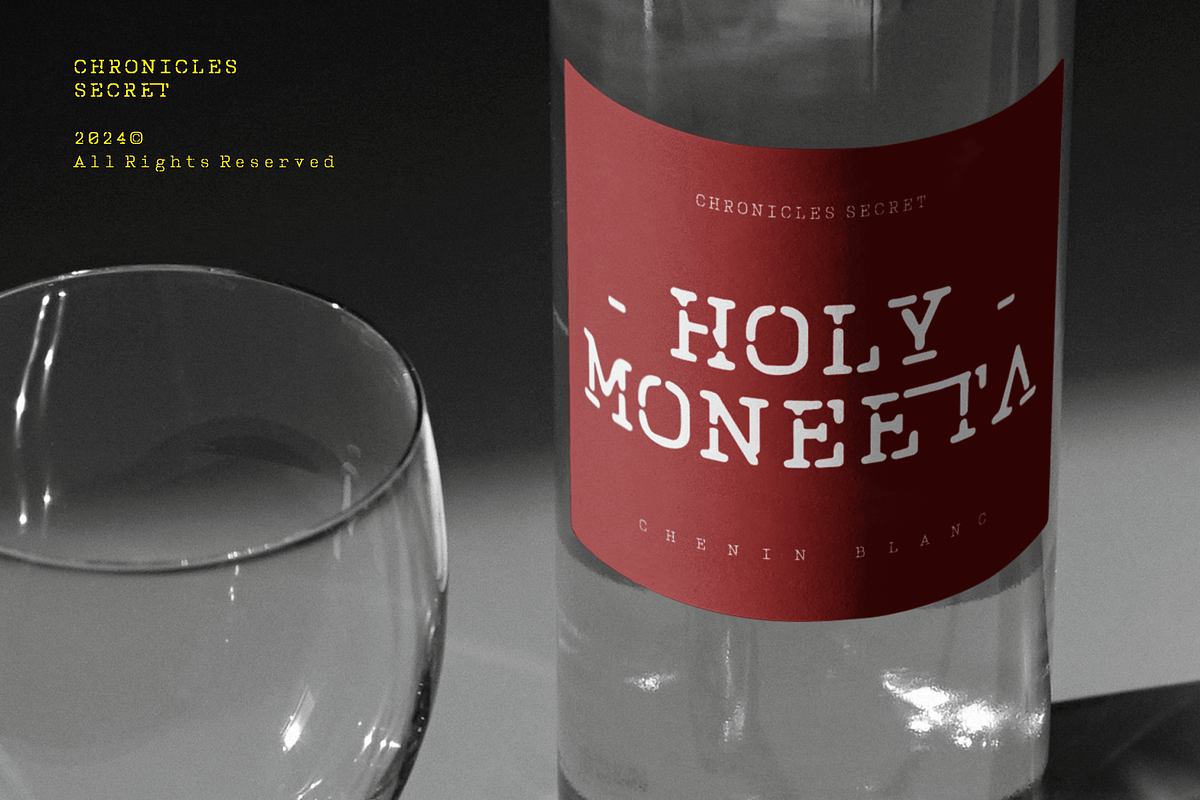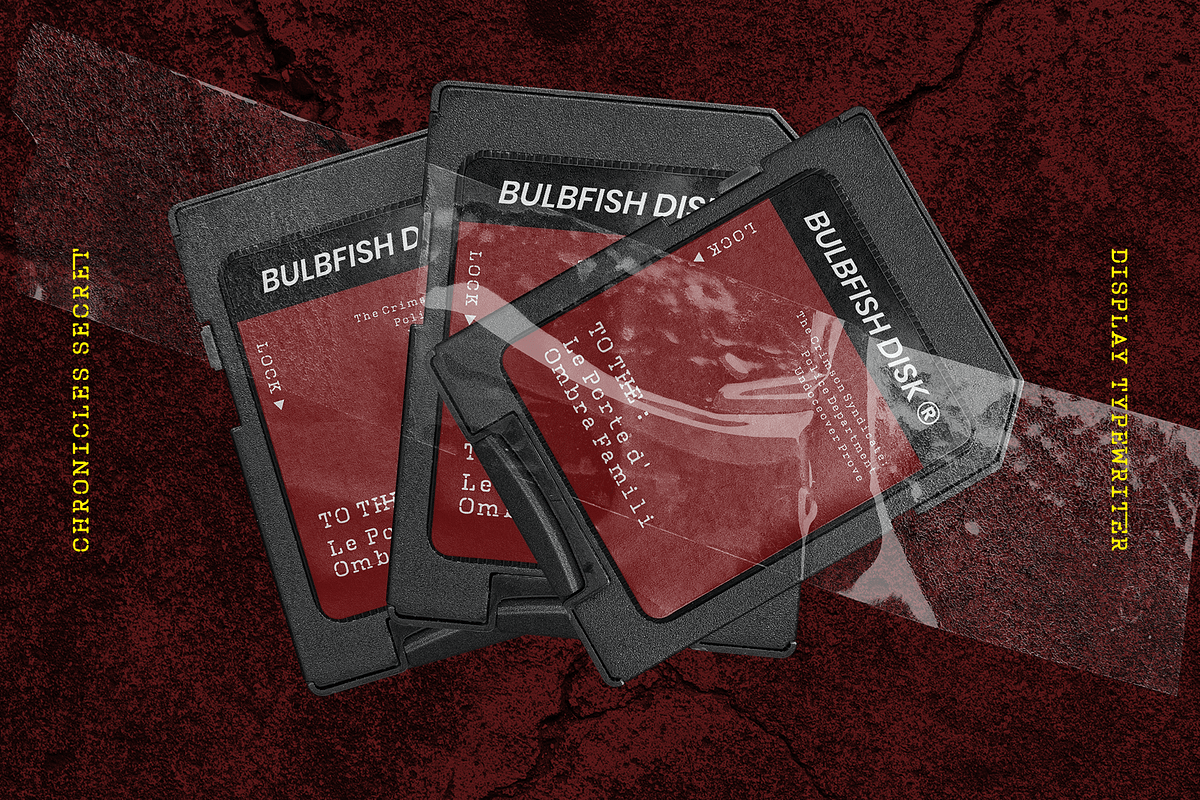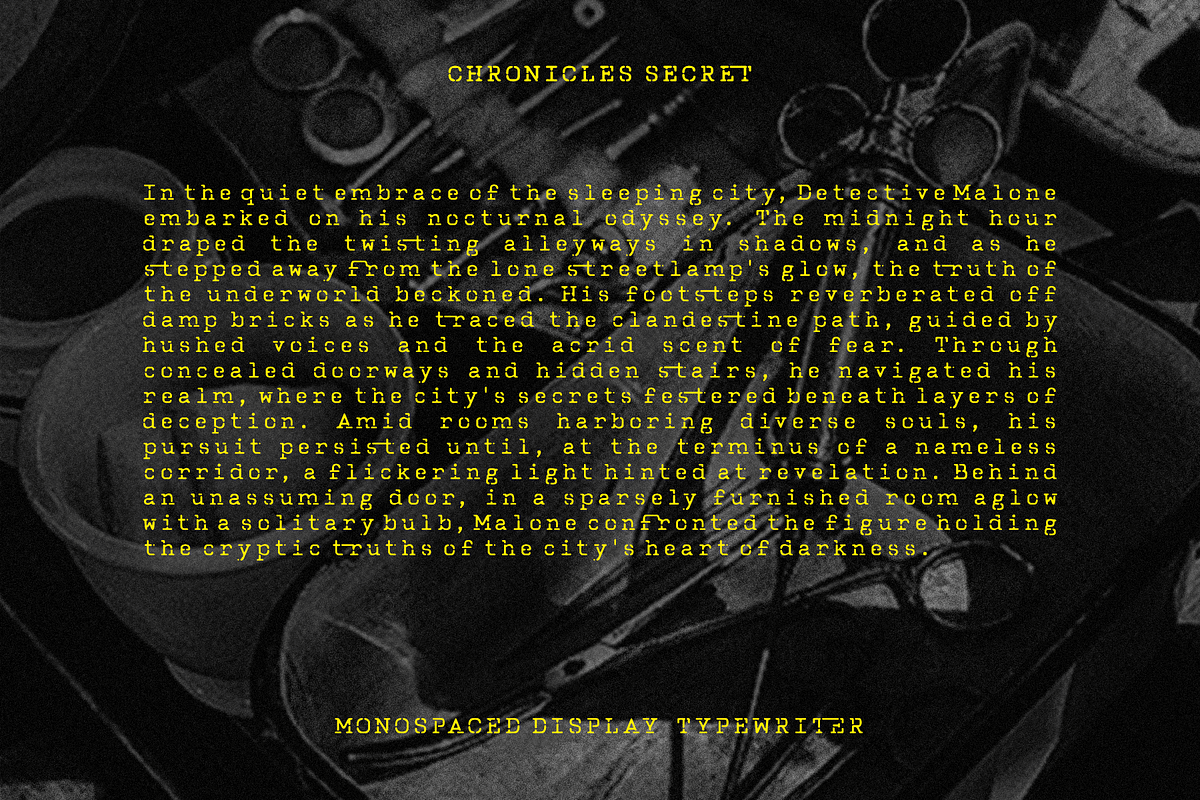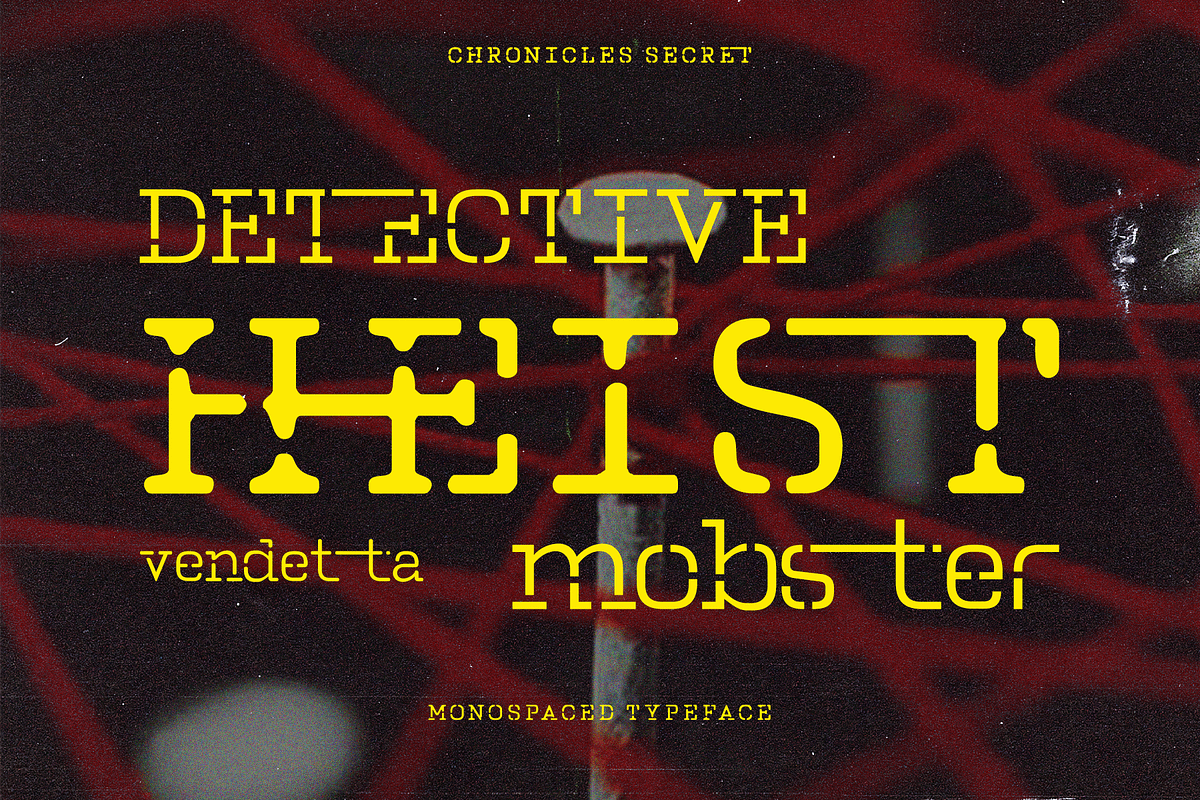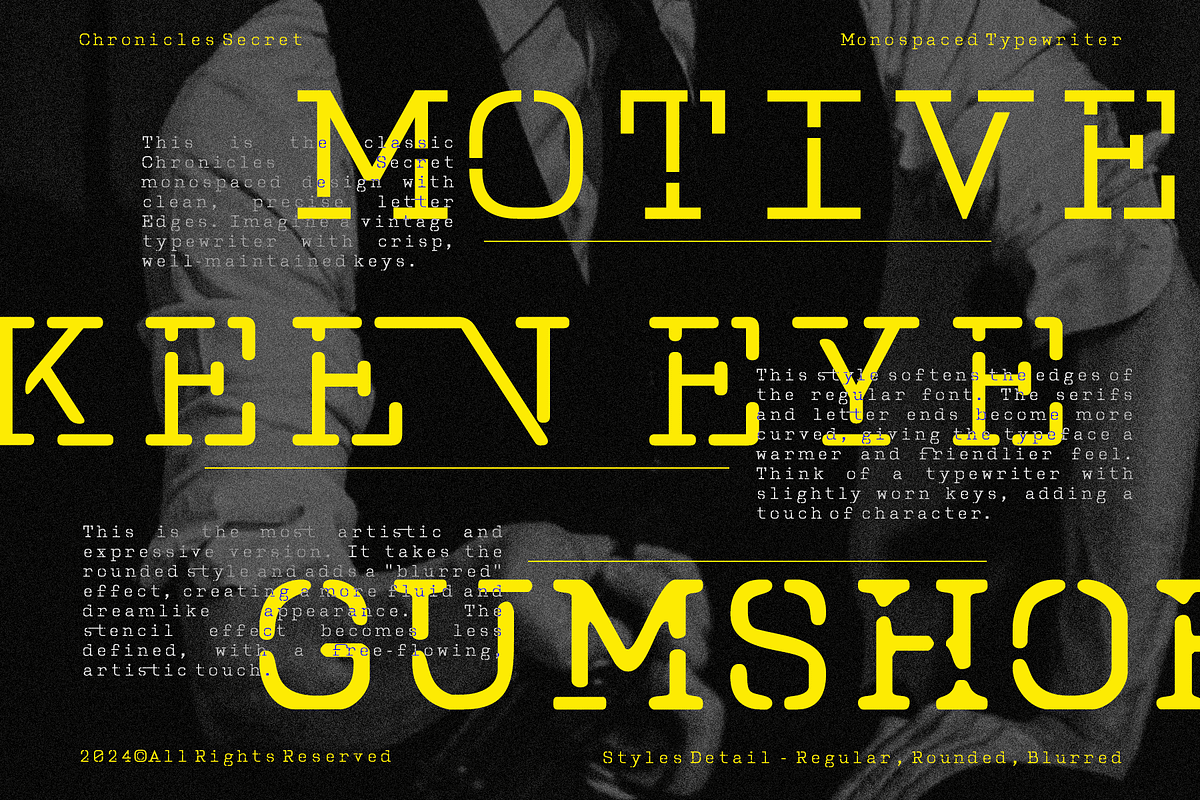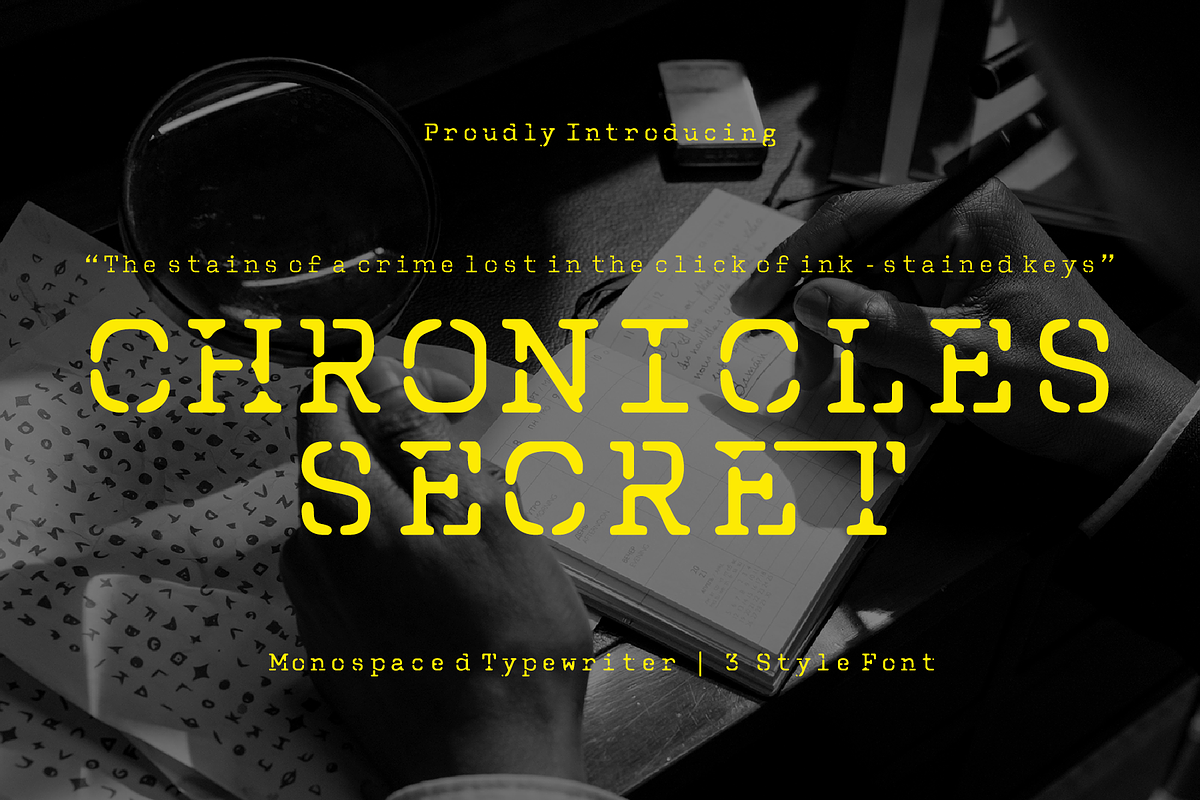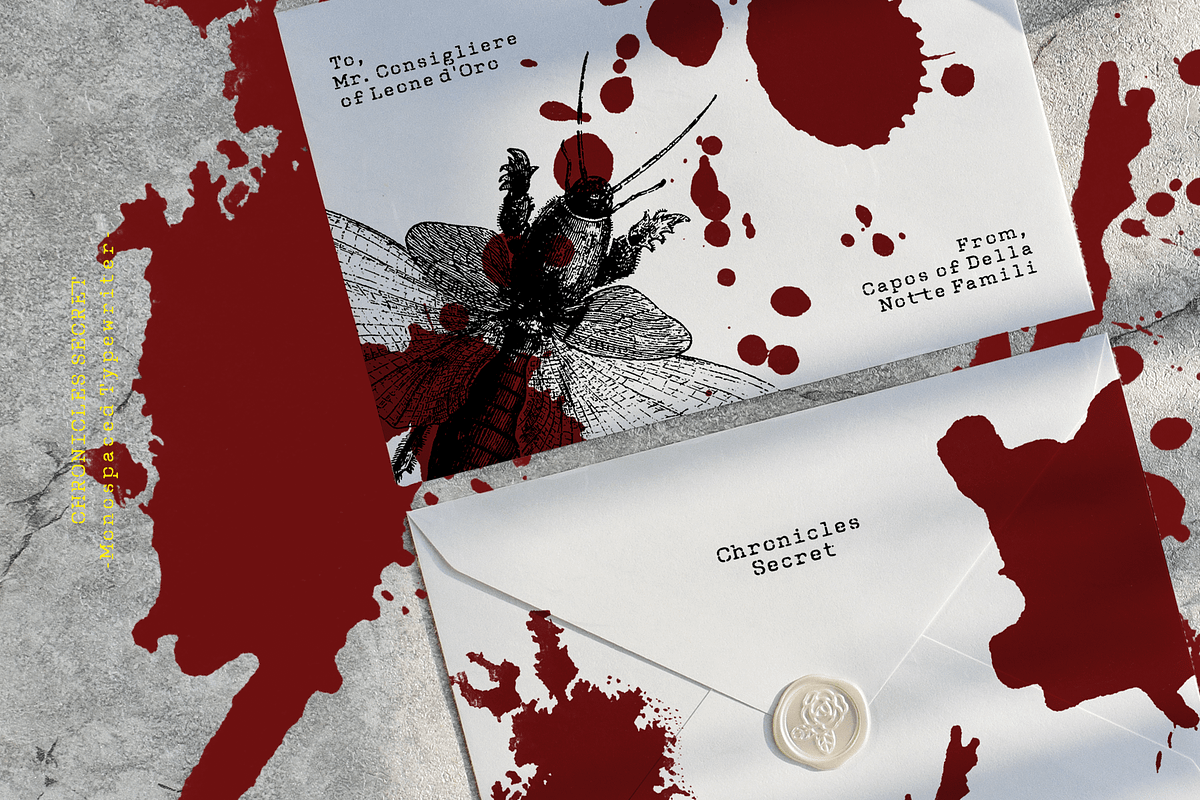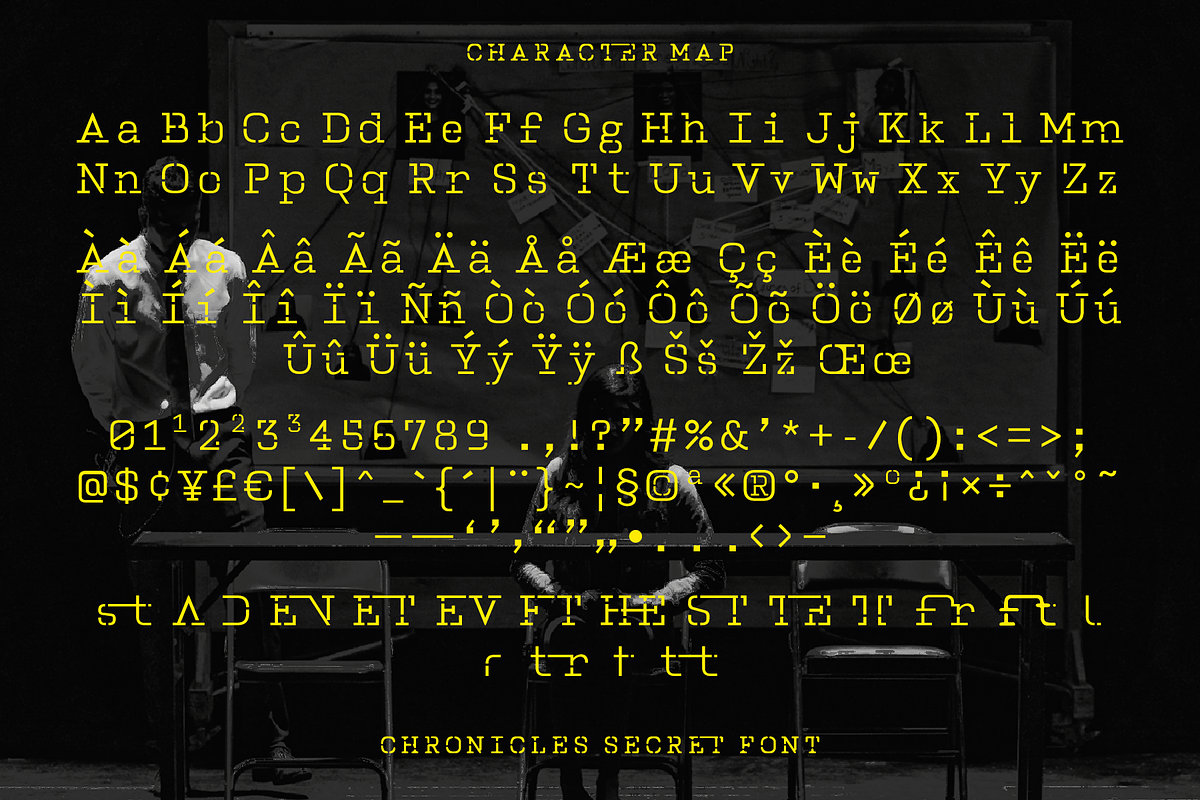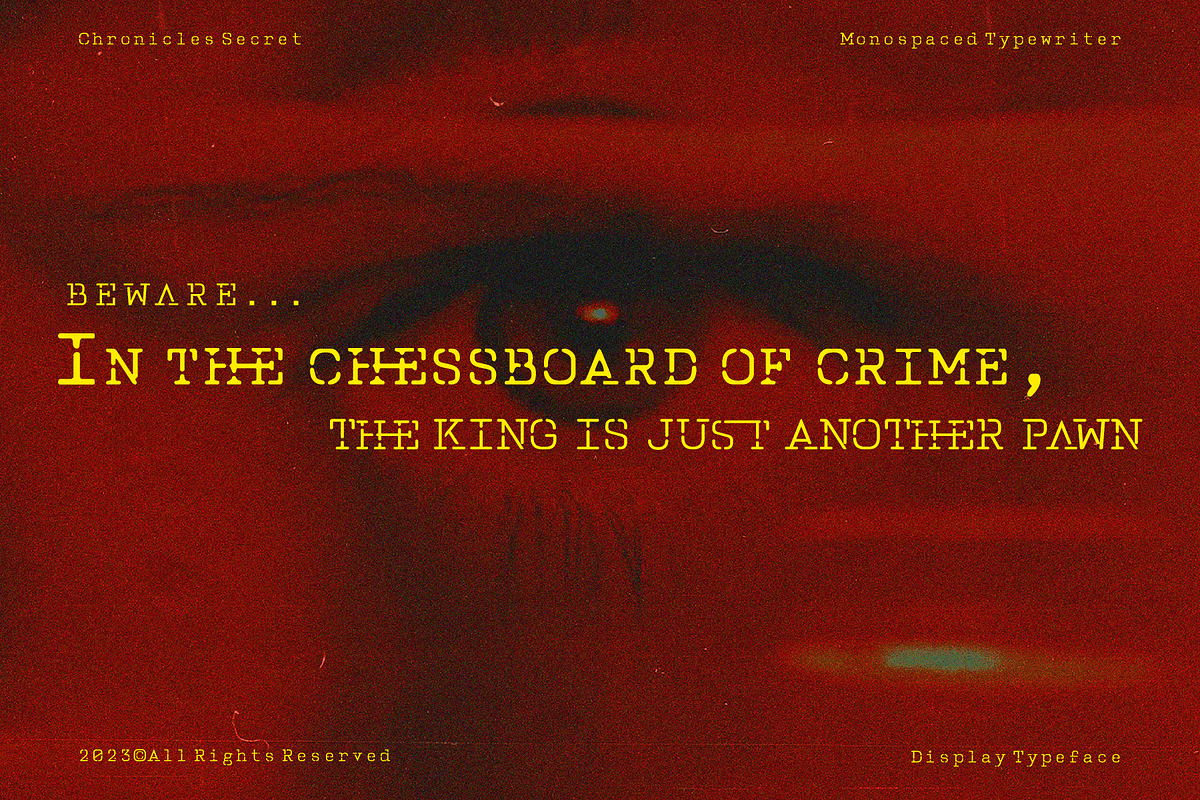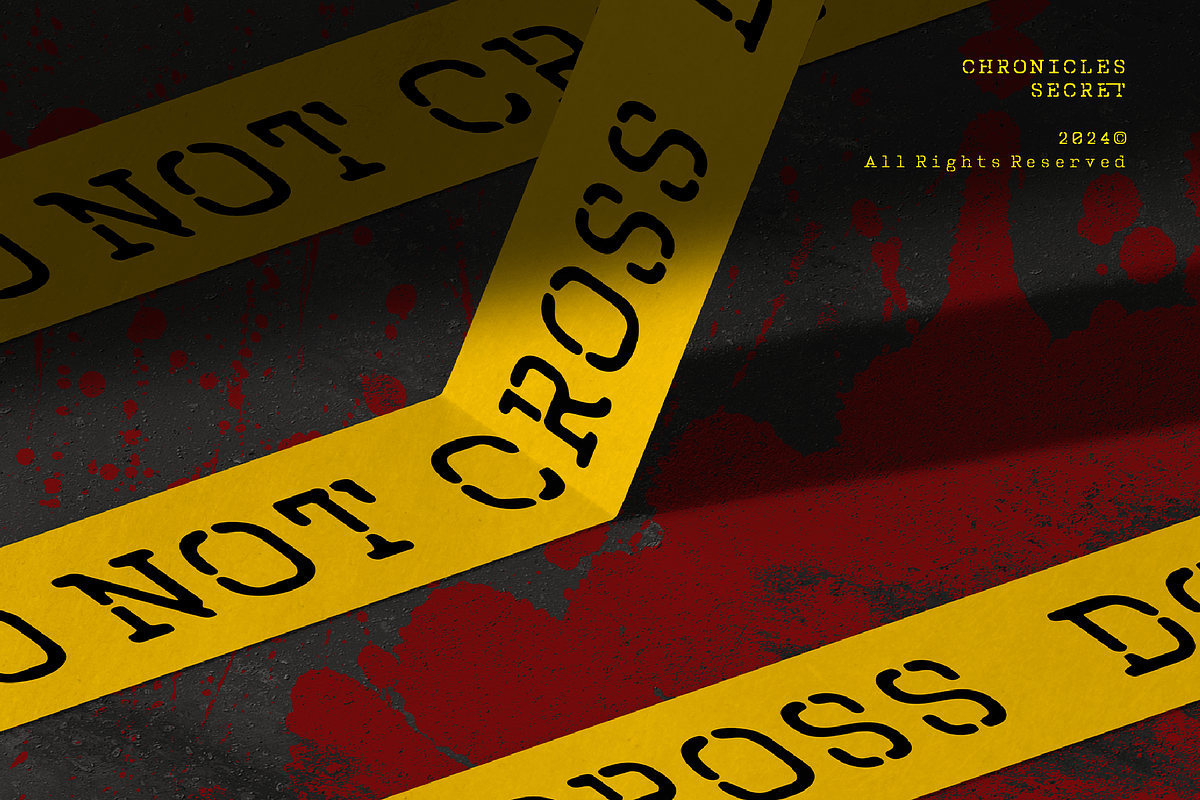
CF Chronicles Secret - Typewriter
Chronicles Secret - inspired by the rhythmic clatter of vintage typewriters, whispers tales of suspense and mystery. Its three distinct styles – angular, rounded, and smooth – offer a unique blend of typewriter charm and contemporary flair, ensuring a font for every narrative. Whether you seek the sharp precision of angular strokes, the inviting warmth of rounded curves, or the dreamy intrigue of blurred edges, Chronicles Secret empowers your design with a touch of vintage magic. Its diverse ligatures, echoing the intricate dance of typewriter keys, further enhance your typographic artistry.
- Standard Character A-Z, a-z, 0-9, Punctuation & symbols
- 3 Font Styles (Angular, Blur, Rounded)
- Various of Alternate
- Lots of Ligature